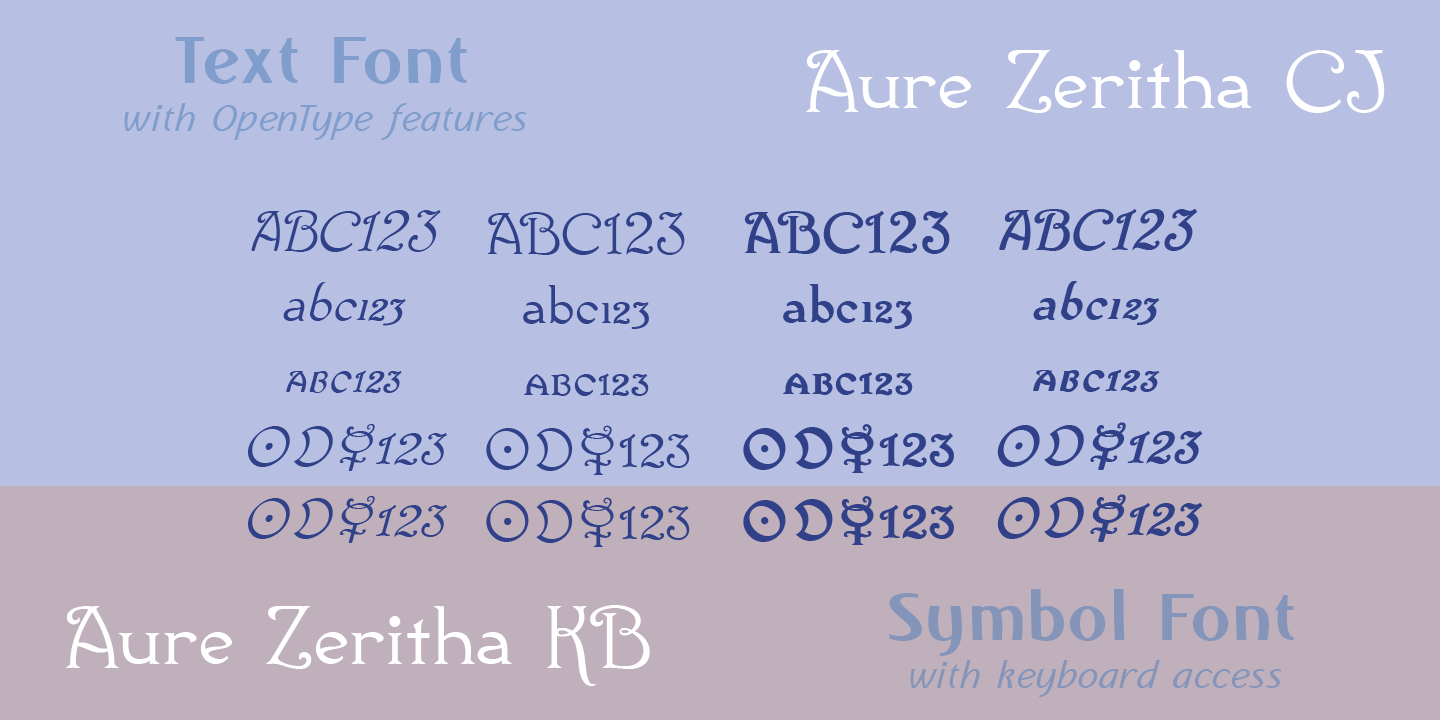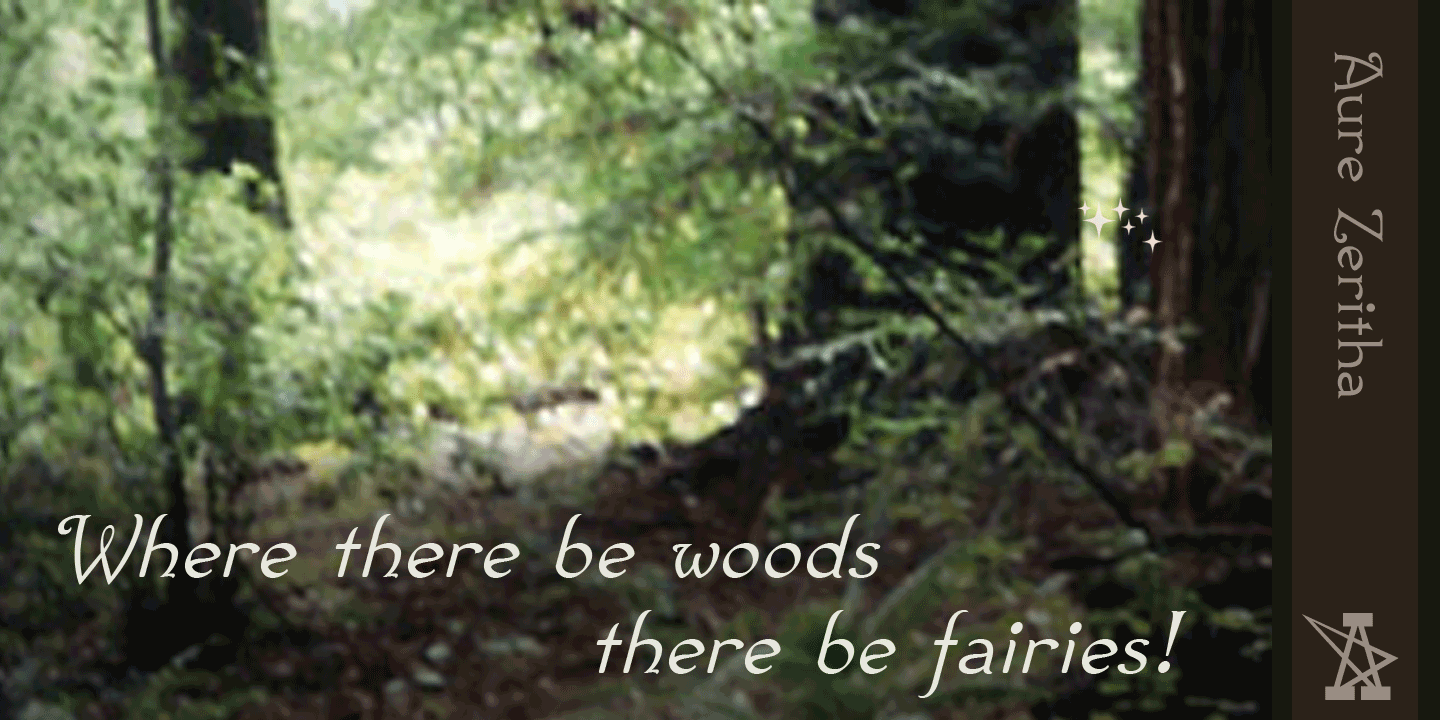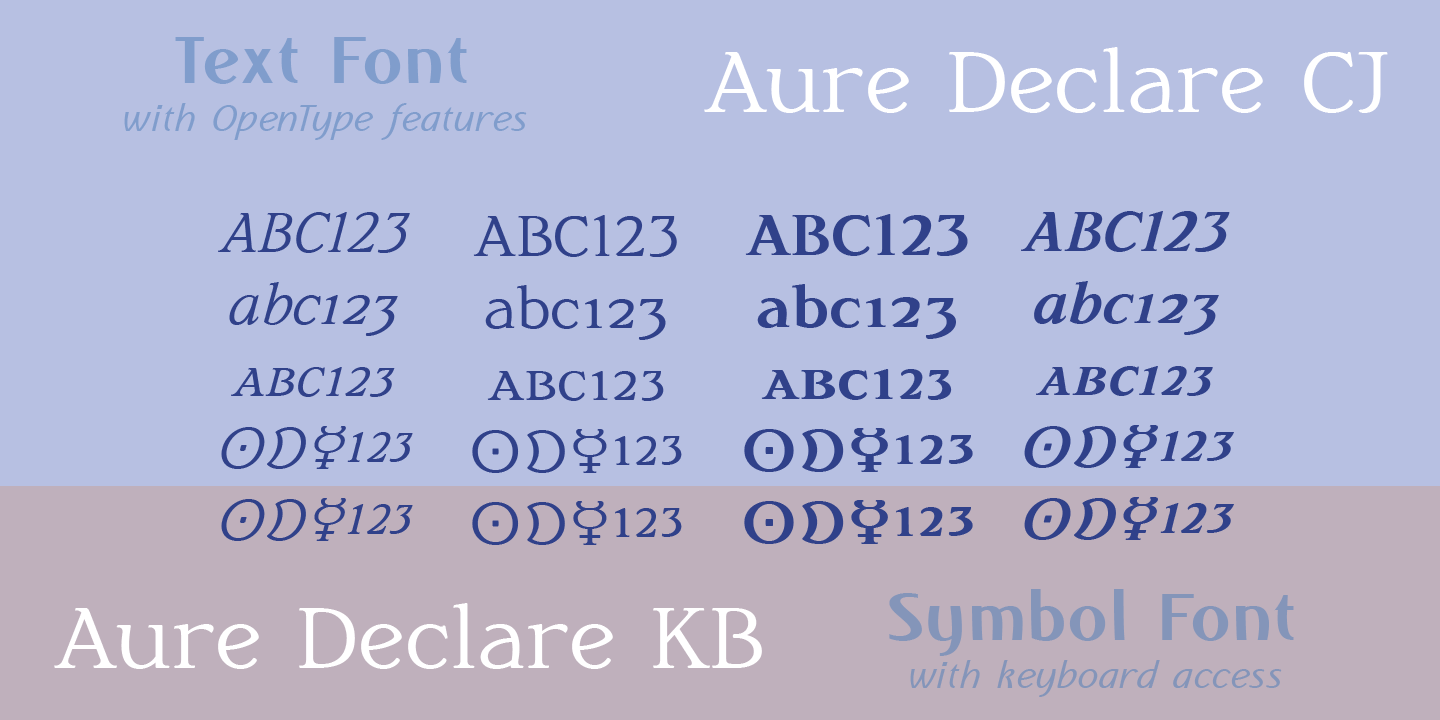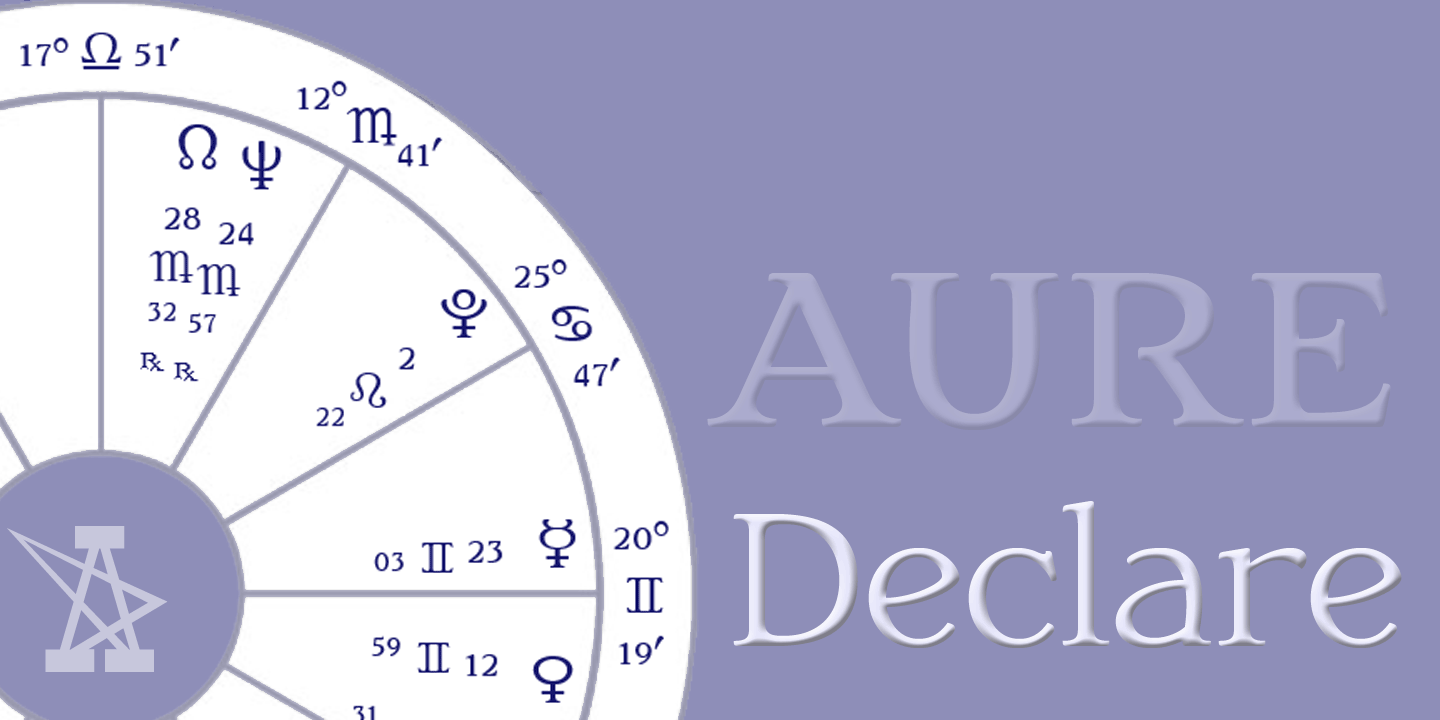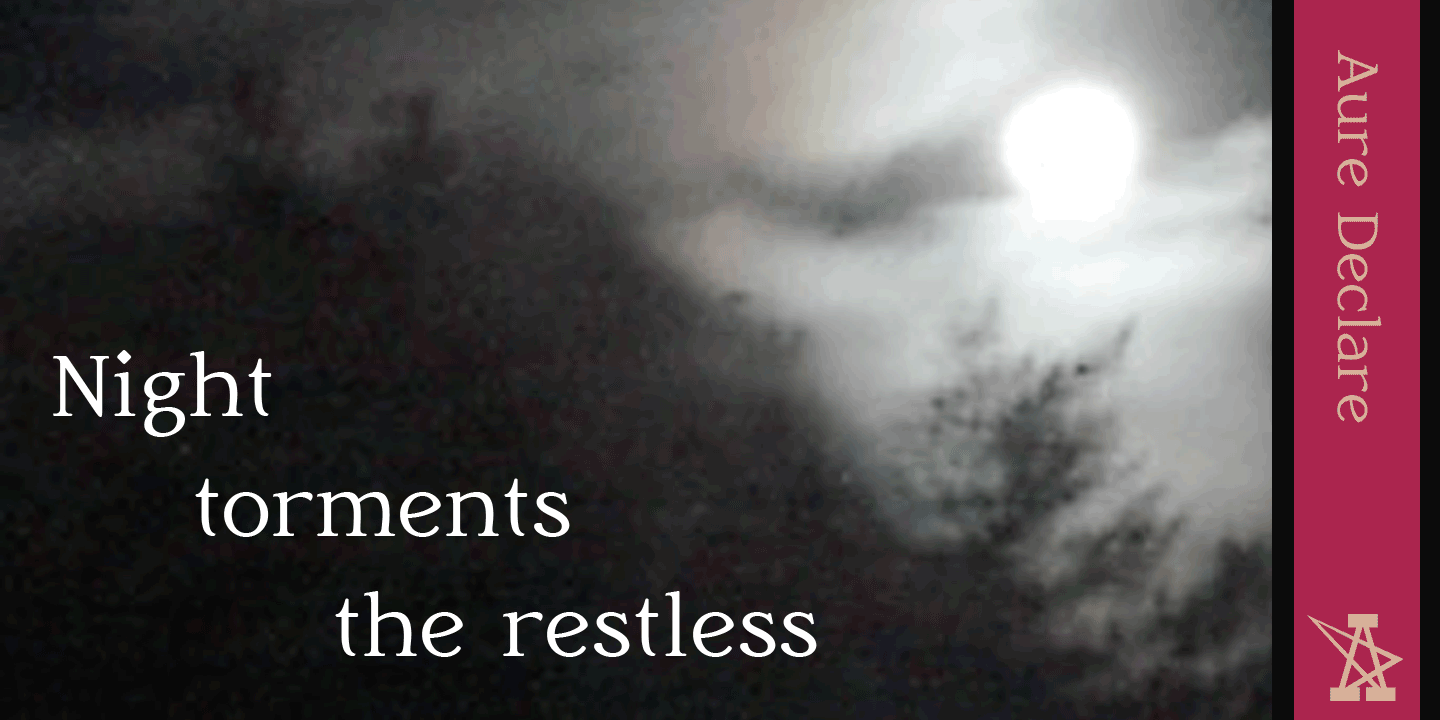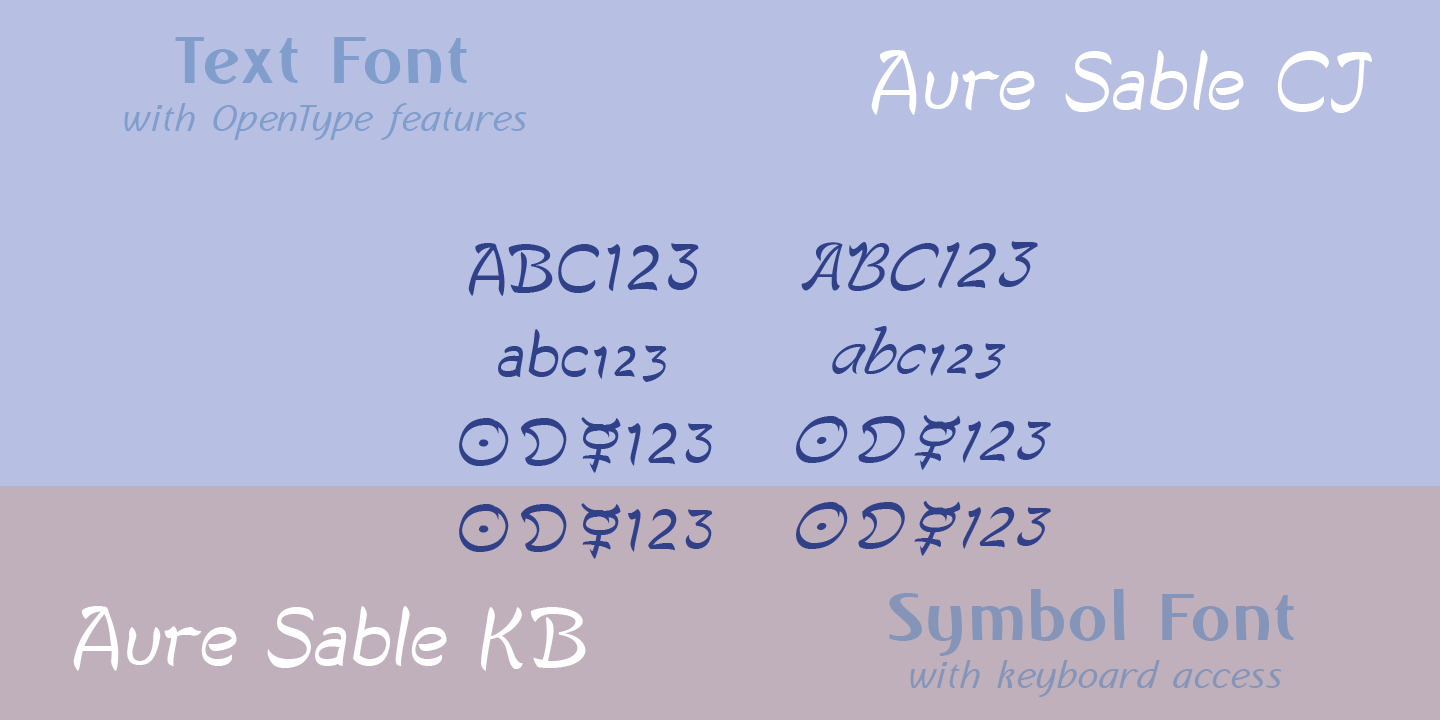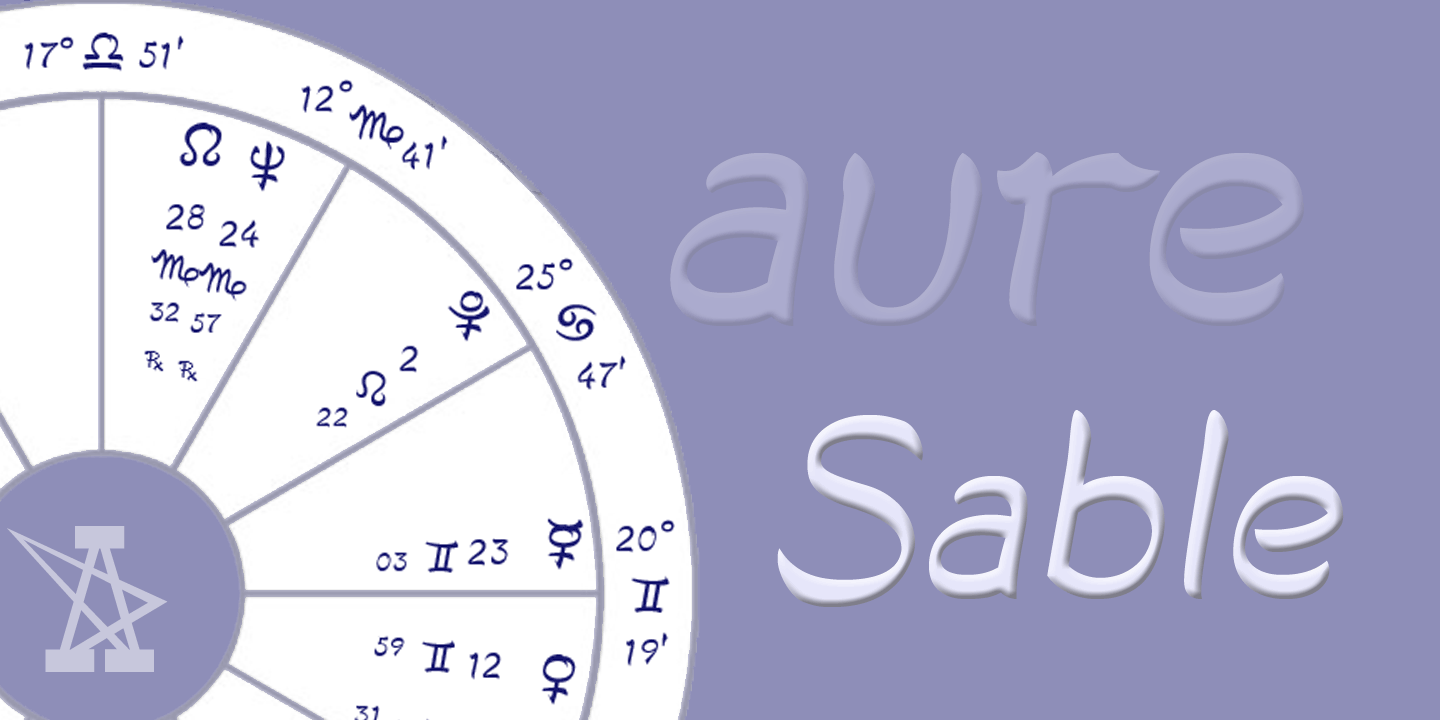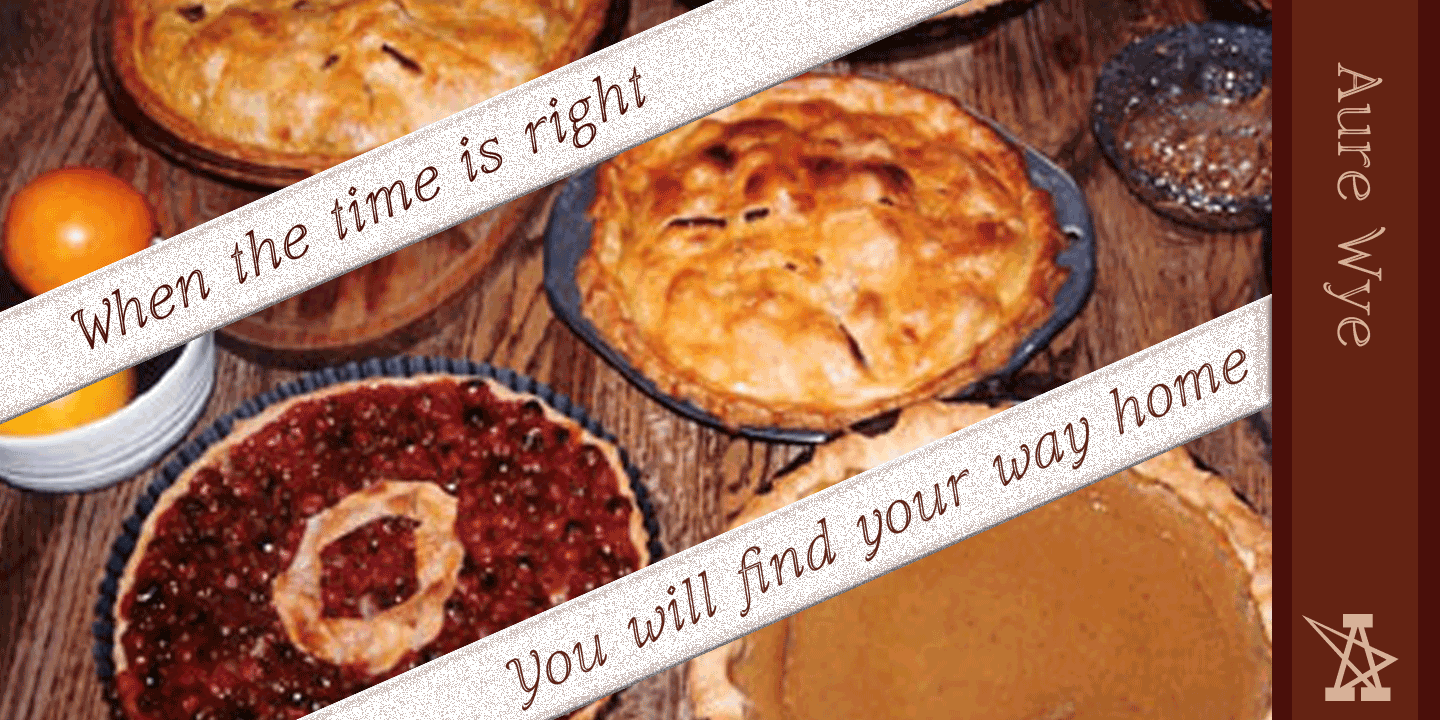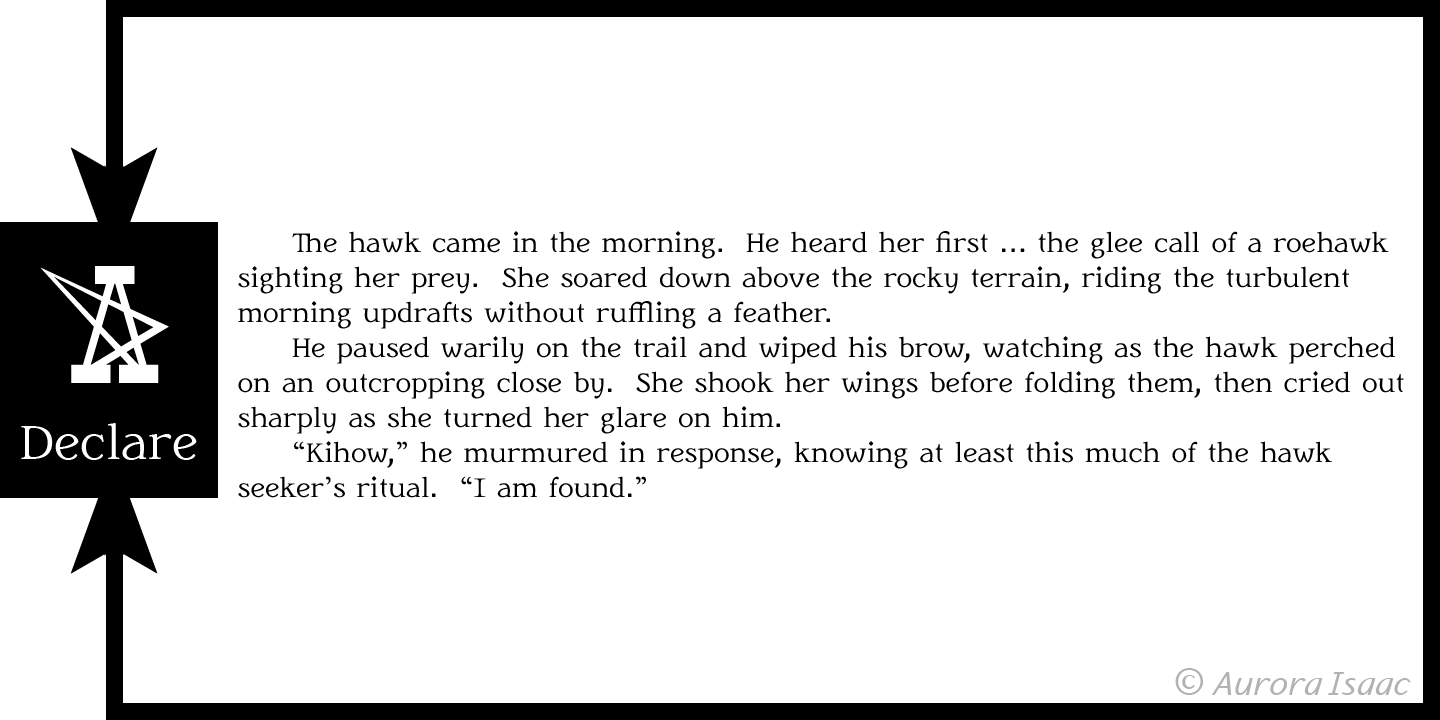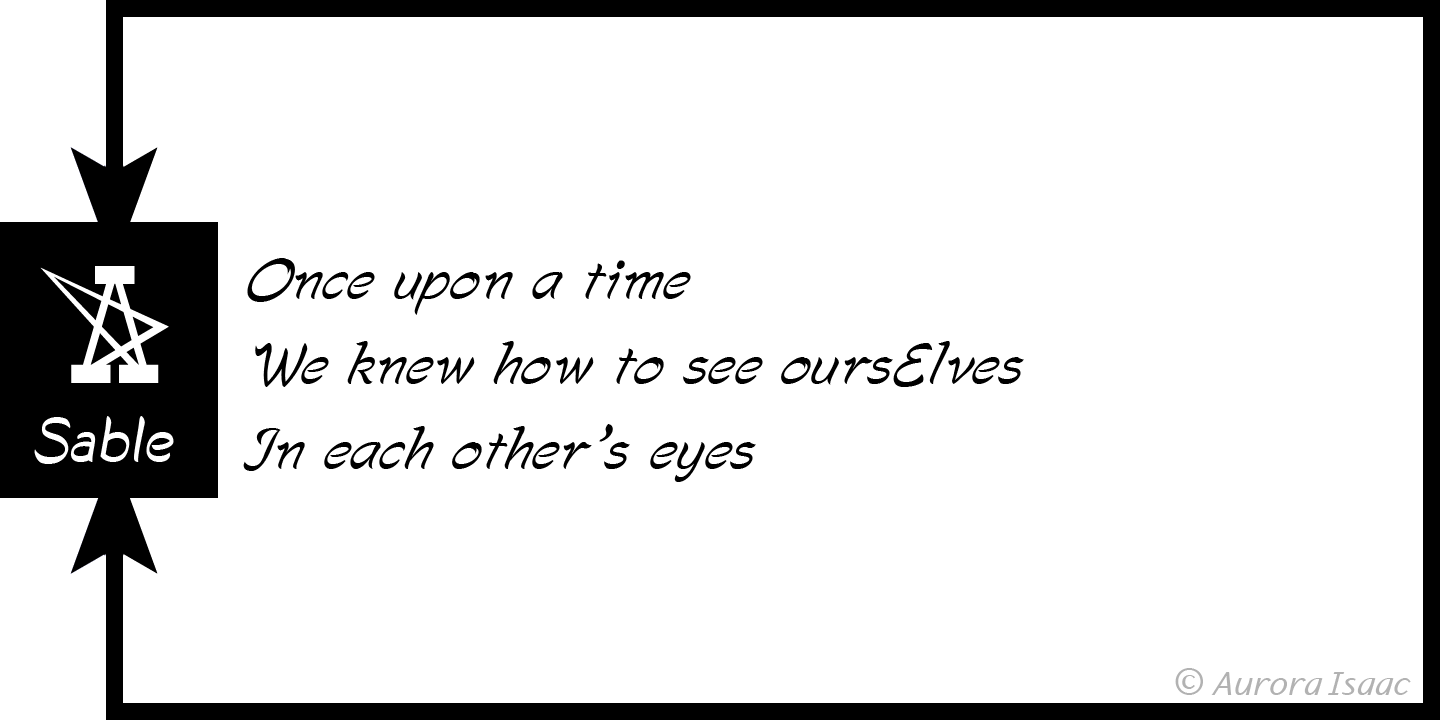
A few years ago I had an idea for an online project that needed embedded fonts. After considering my options, I decided “I should just make my own! It can't be that hard!” In my ignorance, I greatly underestimated the magnitude of this endeavor. Although making fonts is not that “hard,” it is tediously time-consuming work. It is also addictive.
From the time I picked up a pencil and scribbled out a few optimistic doodles, to the time I saw my first font come to life in print, I traveled an amazing journey. Forming a glyph is not a thing to be taken lightly. These are characters with integrity and purpose. Their stories are long – hundreds, even thousands of years in the making. In becoming what they are today, they have suffered generations of indignity in the face of technological imperative. They have been forced into stone, scraped across parchment, sloshed onto paper, and now – pixeled and hinted unmercifully.
I, myself, have done this thing – dragging the helpless tummies of Bezier curves to my satisfaction, clamping the proud serifs of majuscules to my chosen metrics. In my defense I protest that I am not entirely insensitive to their plight. I want to do them justice. I spend countless hours perusing and tweaking in endless repetition. Then, magically, comes a moment when I look at the screen and see the rightness of being in a glyph. I want to reach out and touch, to pick it up off the screen and turn it over and over, feeling the fineness of its shapes with the tips of my fingers. Then, I am at the mercy of my addiction. All I can think is “Ooooh! I want to do that again!” (No wonder there are so many glyphs
in our modern fonts!)
Looking back to that moment when I decided I should just make my own, I am glad of my ignorance. In that moment I didn’t know what I now know: I am a font designer.